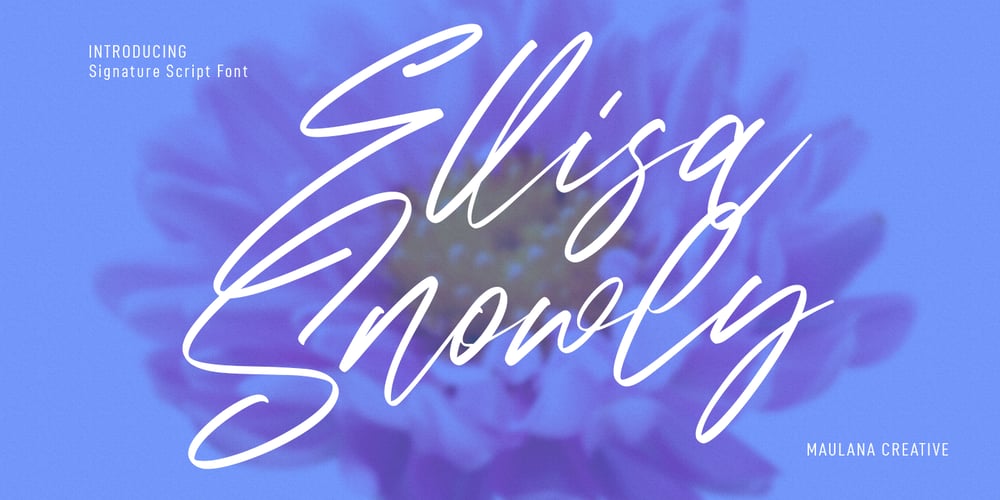
Ellisa Snowly Font Family was designed by Gilang Maulana and published by Maulana Creative. Ellisa Snowly contains 1 styles and family package options. Ellisa Snowly is an slanted style script font. With high contrast stroke, fun character with a bit of ligatures and alternates. To give you an extra creative work. Ellisa Snowly font support multilingual more than 100+ language. This font is good for logo design, Social media, Movie Titles, Books Titles, a short text even a long text letter and good for your secondary text font with sans or serif. Make a stunning work with Ellisa Snowly font. Cheers, Maulana Creative